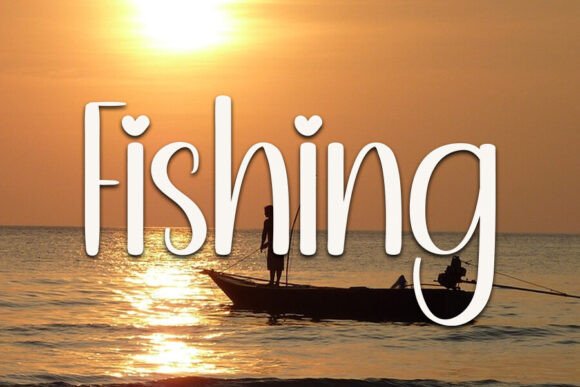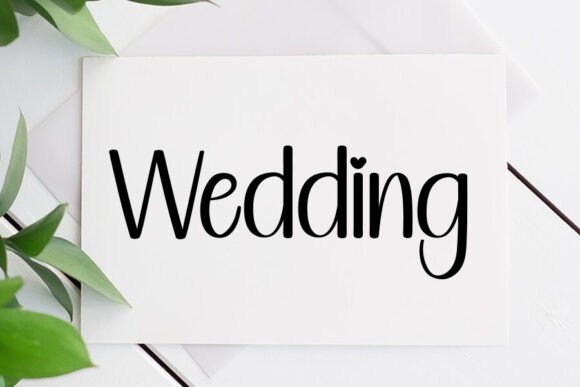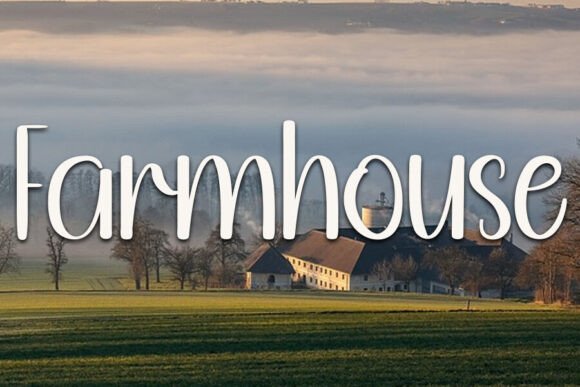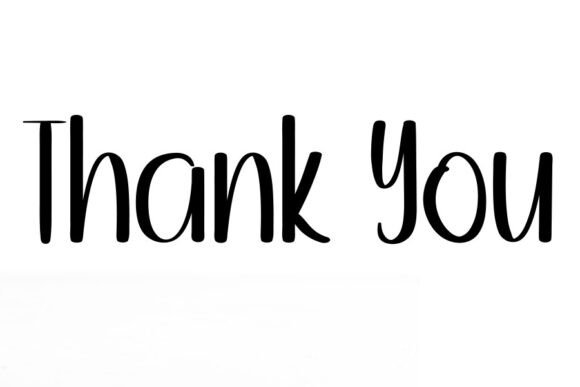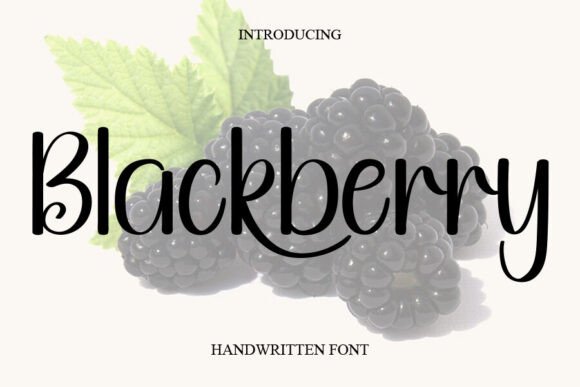
Introducing Blackberry Font: A Timeless Handwritten Delight
Are you a designer or crafter looking for a font that can add a touch of elegance and sophistication to your projects? Look no further than Blackberry Font, a lovely and timeless handwritten font that is sure to make your designs come alive. In this article, we’ll take a closer look at what makes Blackberry Font so special and why it’s the perfect choice for creating eye-catching logos, branding, and quotes.
The Unique Charm of Blackberry Font
Blackberry Font is a beautifully crafted handwritten font that boasts a unique and beautiful touch. Every letter has been carefully designed to be distinct and full of character, making it perfect for adding a personal touch to your designs. Whether you’re creating a logo, branding materials, or quotes, Blackberry Font is sure to make your project stand out from the crowd.
When it comes to creating logos and branding materials, the font you choose can make all the difference. Blackberry Font is an excellent choice for several reasons. Firstly, its handwritten nature gives it a friendly and approachable feel, making it perfect for brands that want to connect with their customers on a personal level. Secondly, the font’s unique and beautiful touch ensures that your logo or branding materials will be memorable and eye-catching.
Why Designers and Crafters Love Blackberry Font
So, what is it about Blackberry Font that designers and crafters love so much? Here are just a few reasons why this font has become a favorite among creative professionals:
• Timeless appeal: Unlike some fonts that can look dated after a few years, Blackberry Font has a timeless quality that ensures it will remain stylish and relevant for years to come.
• Versatility: Blackberry Font can be used for a wide range of projects, from logos and branding to quotes and social media graphics.
• Ease of use: The font is easy to read and works well in both digital and print formats.
• Unique and beautiful touch: Every letter has been carefully designed to be distinct and full of character, making it perfect for adding a personal touch to your designs.
Tips for Using Blackberry Font
Now that we’ve covered what makes Blackberry Font so special, let’s take a look at some tips for using it in your designs:
• Pair it with other fonts: Blackberry Font works well when paired with other fonts, such as sans-serif fonts like Arial or Helvetica.
• Use it for headings and titles: The font’s unique and beautiful touch makes it perfect for headings and titles, where you want to make a bold statement.
• Experiment with colors: Blackberry Font looks great in a range of colors, from bold and bright to soft and pastel.
Font Name Blackberry Font
In conclusion, Blackberry Font is a lovely and timeless handwritten font that is perfect for designers and crafters looking to add a touch of elegance and sophistication to their projects. With its unique and beautiful touch, versatility, and ease of use, it’s no wonder that Blackberry Font has become a favorite among creative professionals. Whether you’re creating logos, branding materials, or quotes, Blackberry Font is sure to make your designs come alive!
Get Creative with Blackberry Font
Ready to get creative with Blackberry Font? Here are some ideas to get you started:
• Create a logo: Use Blackberry Font to create a unique and eye-catching logo for your brand or business.
• Design a quote: Use the font to create a beautiful and inspiring quote that you can share on social media or use in a project.
• Make a branding board: Use Blackberry Font to create a branding board that showcases your brand’s personality and style.
Whatever your project, Blackberry Font is sure to be a great choice. So why not give it a try and see what amazing designs you can create?